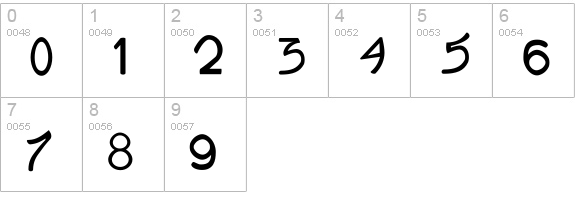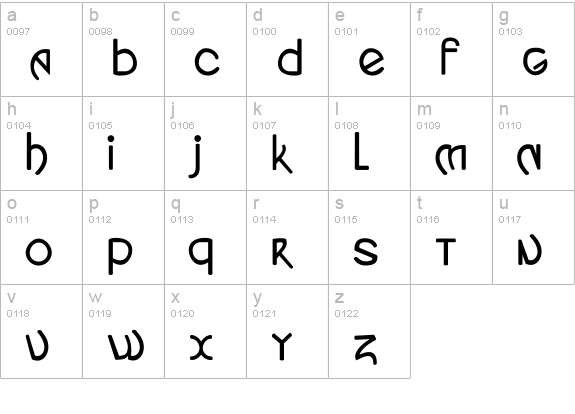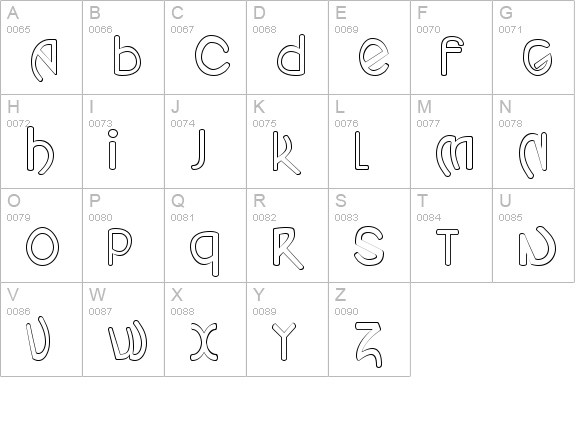
Yes:TimeWord Font Details
Yes:TimeWord font is a stunning and modern typeface that is perfect for adding a touch of sophistication to your designs. With its sleek lines and elegant curves, this font exudes a sense of style and creativity. The versatility of Yes:TimeWord font makes it suitable for a wide range of projects, from logos and branding to invitations and social media posts. The best part? Yes:TimeWord font is available for free download at FontsMarket.com, making it easily accessible to designers and creators looking to elevate their projects without breaking the bank. Whether you're working on a personal project or a professional assignment, Yes:TimeWord font is sure to impress with its unique and eye-catching design. Download it today and add a touch of elegance to your creations!